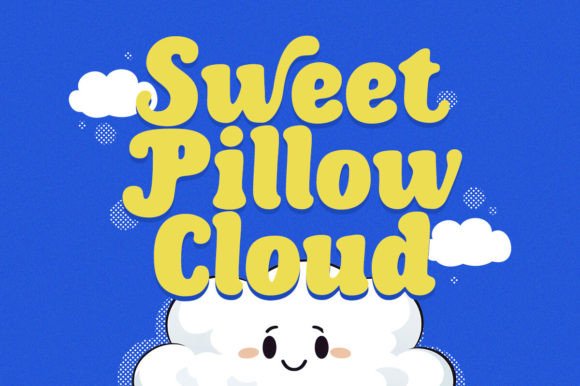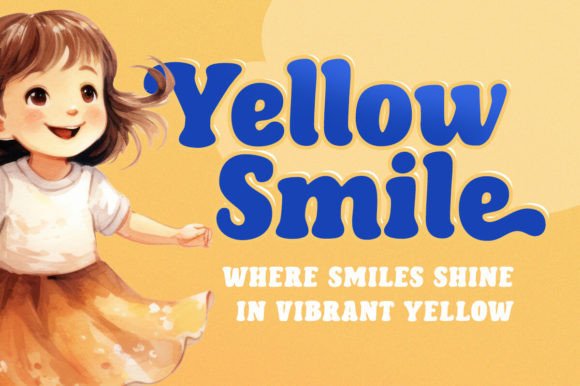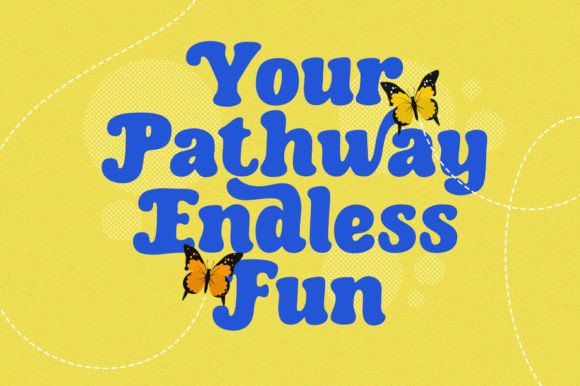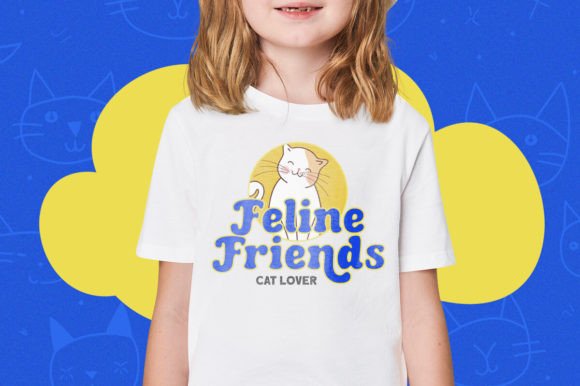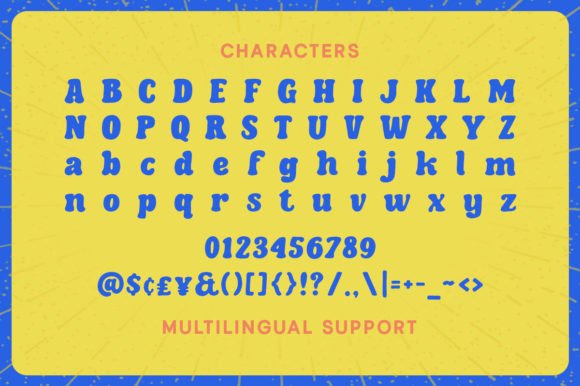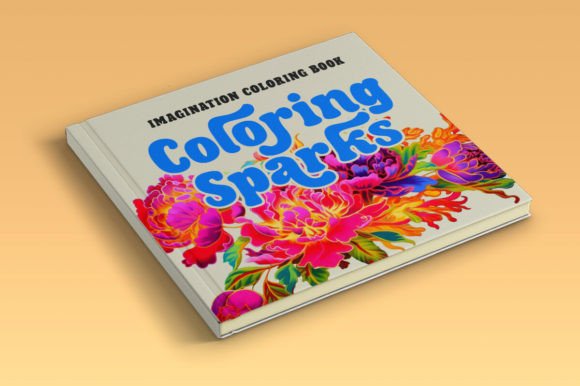
Introduction to Lovie Cloud Font
As a designer, there’s nothing quite like the thrill of discovering a new font that sparks creativity and sets your imagination ablaze. For me, it’s often a moment of pure serendipity – scrolling through a font library, stumbling upon a hidden gem, and suddenly envisioning a whole new world of possibilities. That’s exactly what happened when I discovered the Lovie Cloud Font.
This stunning display font is more than just a pretty face; it’s a game-changer for designers looking to add a touch of elegance and sophistication to their creative projects. With its bold letterforms and playful alternates, the Lovie Cloud Font is the perfect design resource for anyone looking to elevate their branding, advertising, or editorial work.
Key Features of Lovie Cloud Font
- High-quality, professional font design perfect for creative projects and design resources.
- Comes with a transparent background, making it easy to use on various backgrounds and designs.
- Designed for versatility, suitable for use in a variety of creative projects, from logos to marketing materials.
- Unique, modern design aesthetic that adds a touch of sophistication to any design.
Honest Review: Lovie Cloud Font
I recently stumbled upon the Lovie Cloud Font and I must say, it’s been a game-changer for my creative projects. ✨
The font is incredibly versatile, making it perfect for a wide range of design tasks, from branding to digital art. What I love most about the Lovie Cloud Font is its ability to seamlessly integrate with a transparent background, giving it a clean and modern look.
Here are some of the things that work well with the Lovie Cloud Font:
- Its modern and minimalist design makes it perfect for contemporary projects
- Its high-quality vector graphics ensure crisp and clear text rendering
- Its transparent background makes it easy to use with complex backgrounds
While the Lovie Cloud Font is an excellent addition to any designer’s toolkit, there are a few limitations to be aware of:
- It may not be suitable for projects that require a more traditional or classic font style
- Some users may find the font’s minimalist design too simple for certain projects
Overall, I’m thoroughly impressed with the Lovie Cloud Font and I highly recommend it to any designer looking for a high-quality, versatile font for their creative projects.
The Lovie Cloud Font is a high-quality, free download design resource perfect for creative projects that require a unique and stylish touch. With a transparent background, this font is versatile and easy to use in various design applications.
Tips for Getting the Most Out of Lovie Cloud Font
To maximize the use of Lovie Cloud Font, experiment with different font sizes, colors, and combinations to create unique and eye-catching designs. You can also pair it with other design resources to create a cohesive look.
The Lovie Cloud Font is ideal for a variety of creative projects, including graphic design, branding, and digital art. It’s perfect for creating bold and stylish text elements, such as headings, titles, and logos.